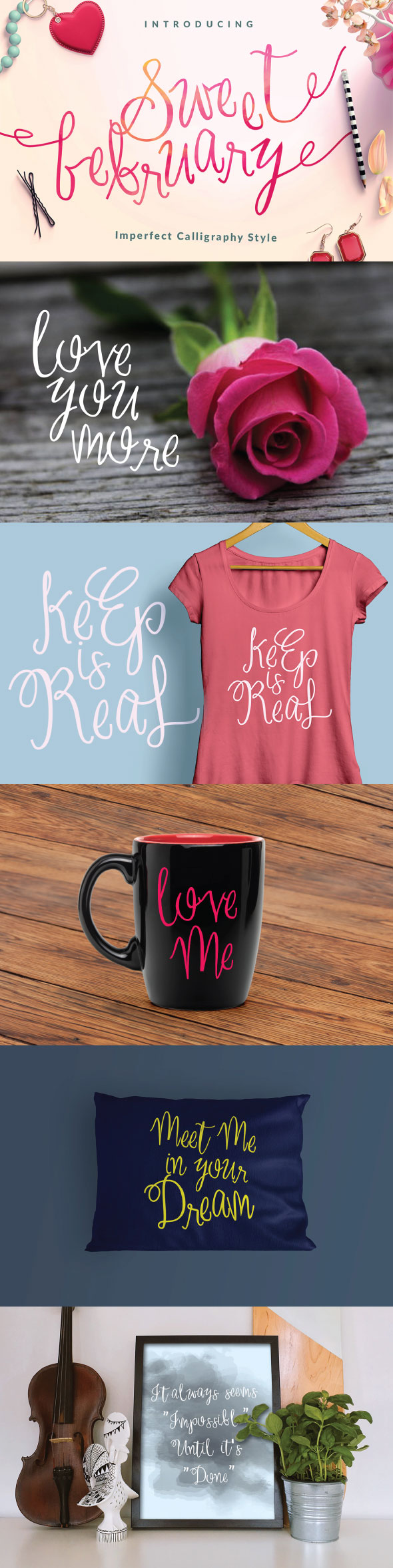
Sweet February Script
Sweet February Script Font
The Sweet February Script font is a handmade calligraphy-style font. It’s great for adding a personal touch to your designs.
It comes with a full set of lowercase & uppercase characters and includes: large range of punctuation, numerals, multilingual support and more.